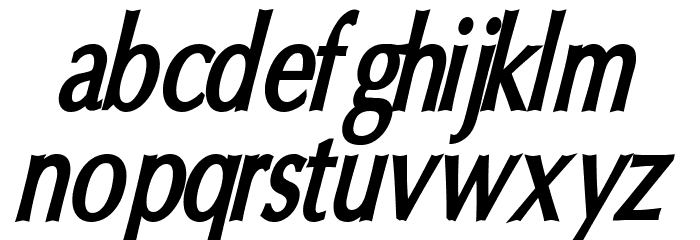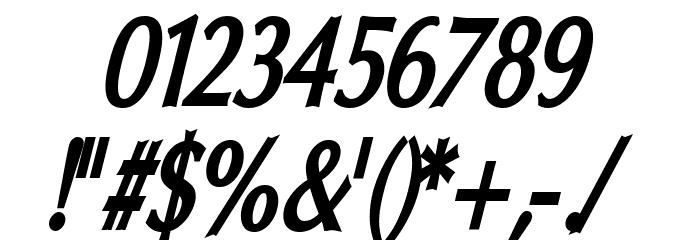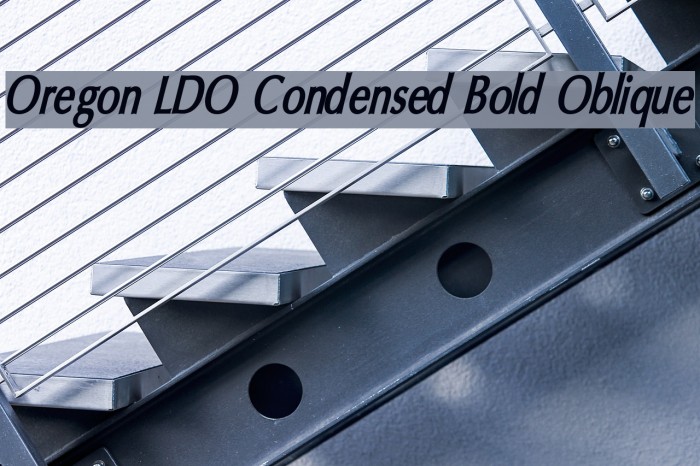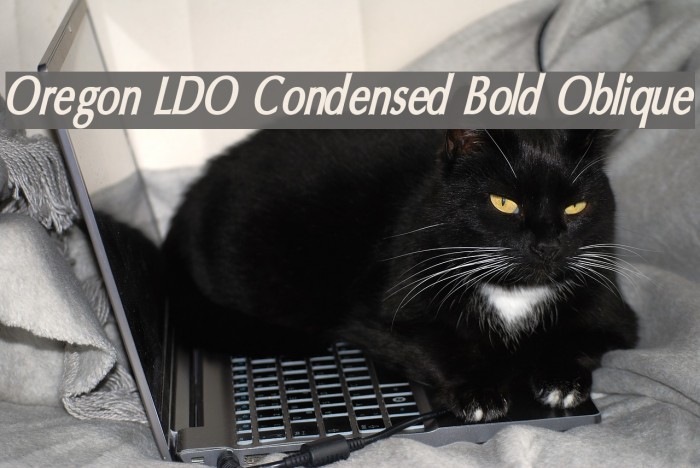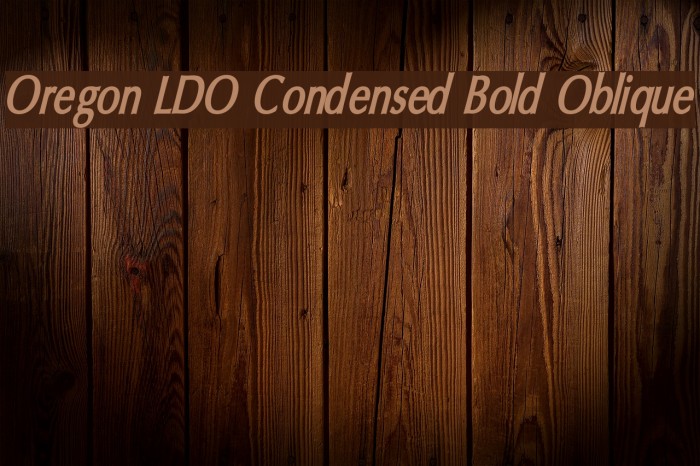
Oregon LDO Condensed Bold Oblique Font
This font exhibits a bold and oblique style, characterized by its condensed letterforms that create a strong visual impact. The uppercase and lowercase letters maintain a consistent slant, enhancing the dynamic appearance. The numerals and special characters are designed to complement the overall aesthetic, ensuring readability and style. The strokes are uniform, contributing to a cohesive and modern look. This font is suitable for projects that require a bold statement while maintaining clarity and professionalism.
A bold, oblique, and condensed font with a modern and dynamic style.
- Proposed Projects: Ideal for branding, advertising, headlines, and any design project that requires a strong and modern typographic presence.
- Category: Sans-Serif
- Character Spacing: Tight
- Use Case: Headlines, Logos, Branding